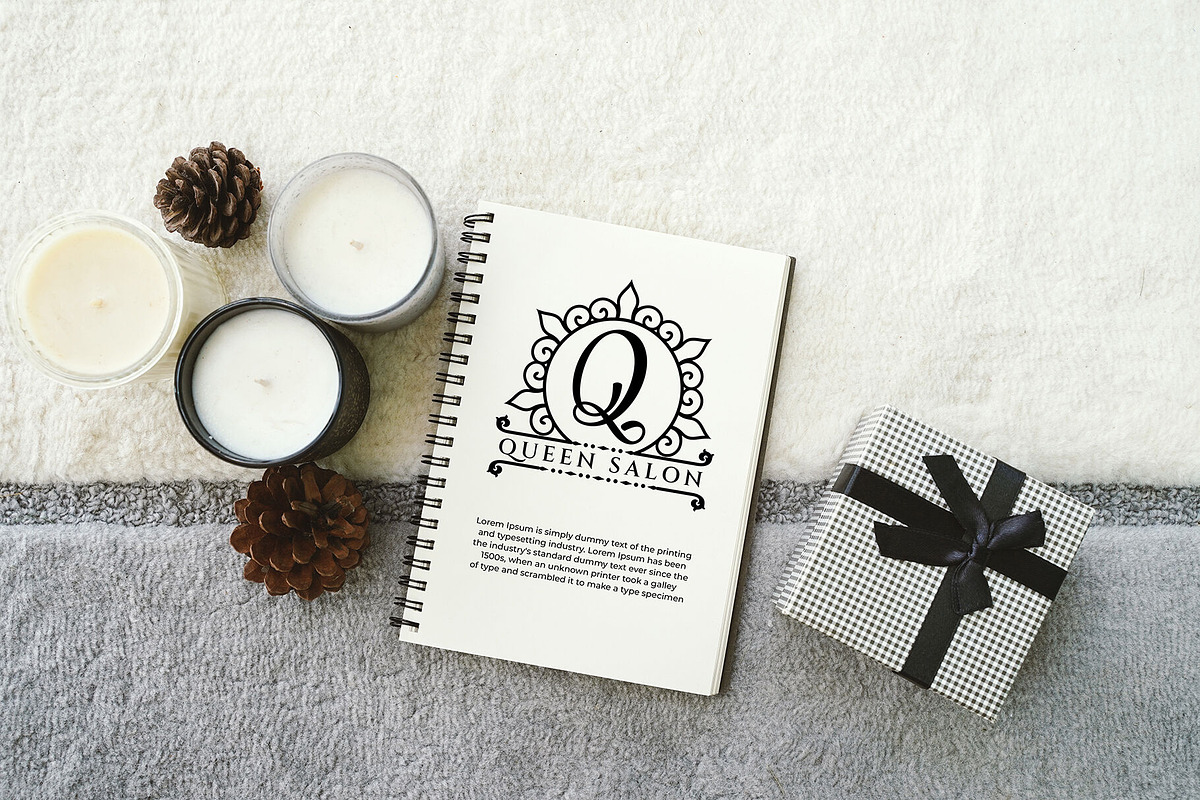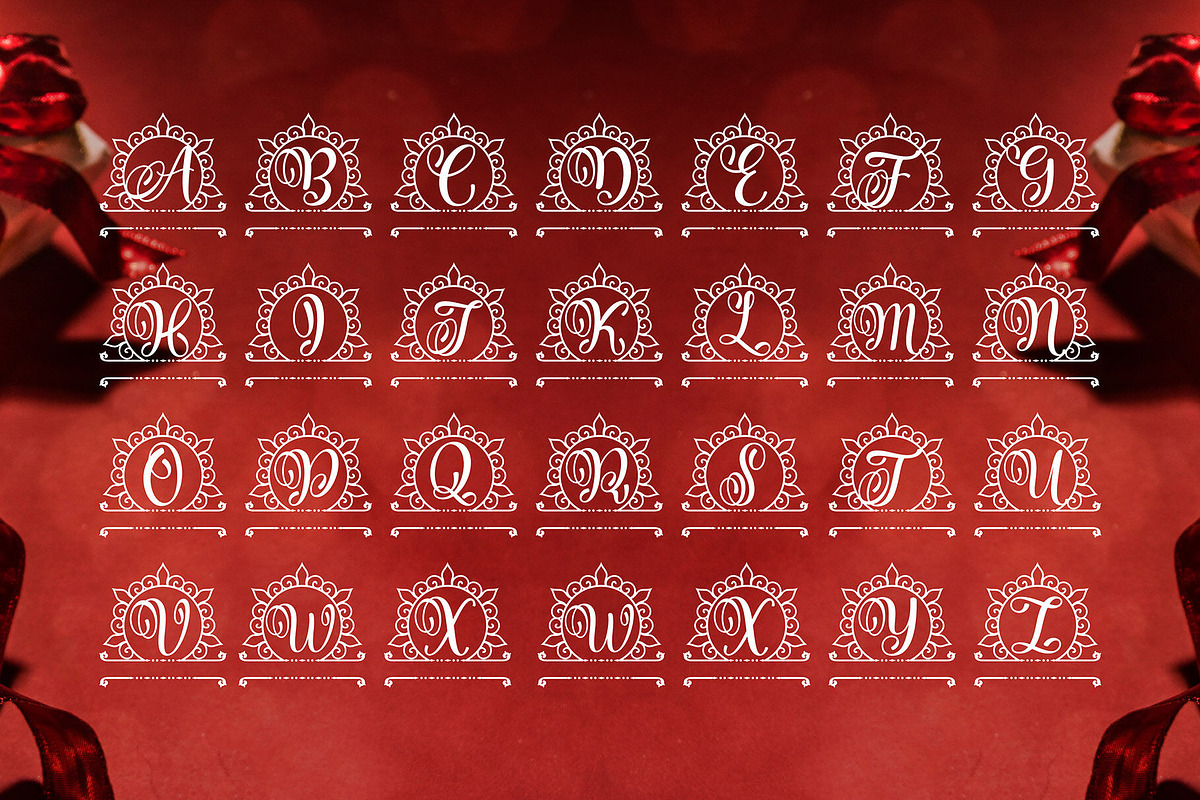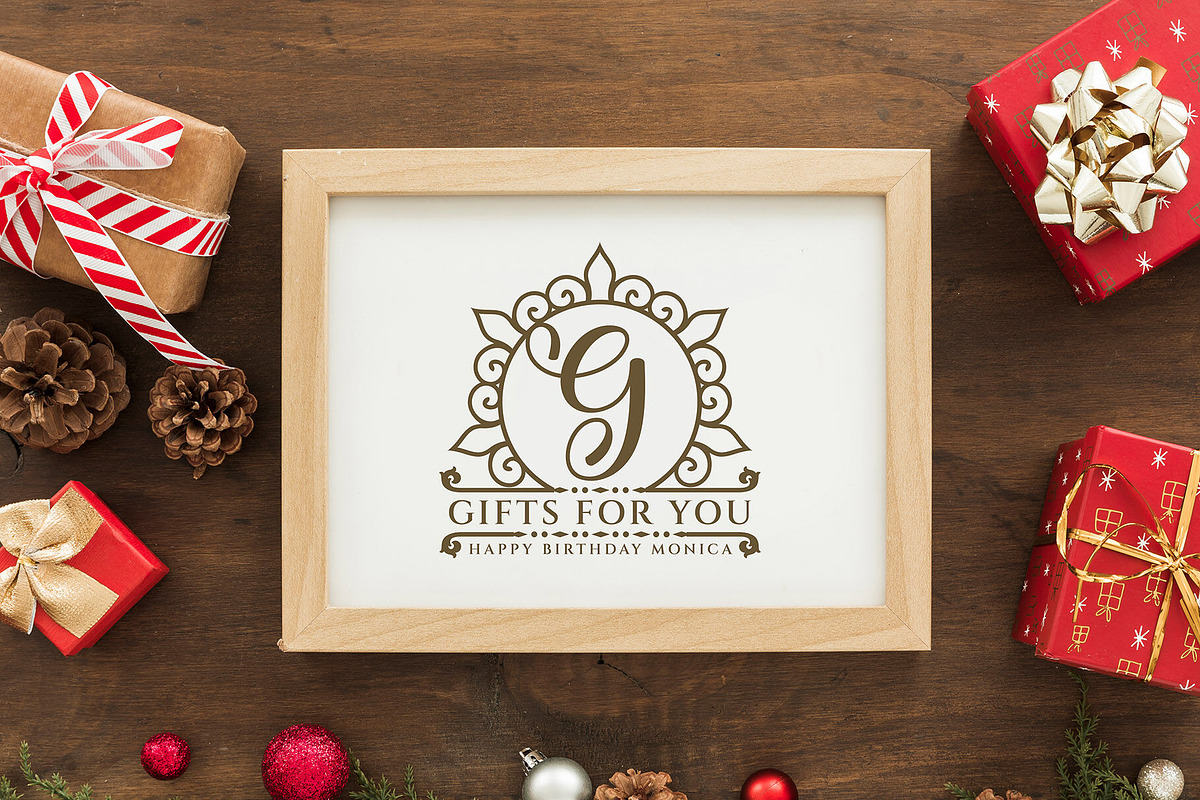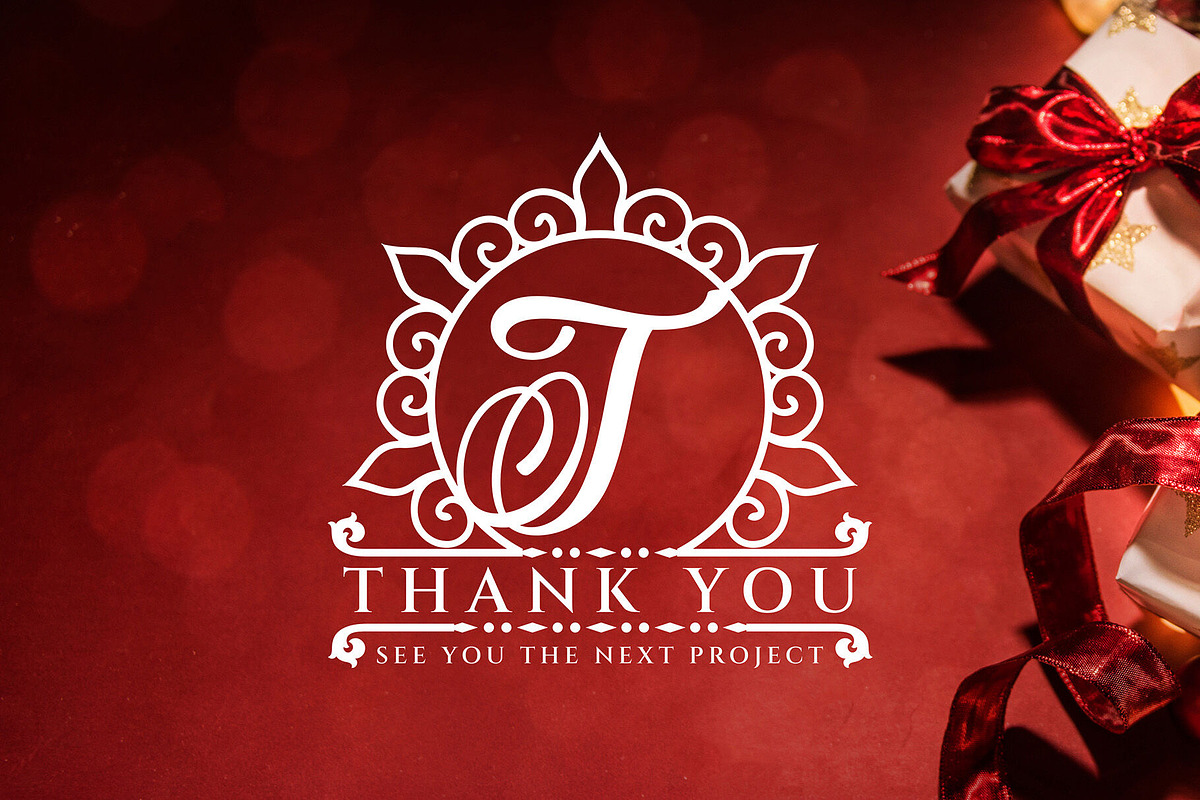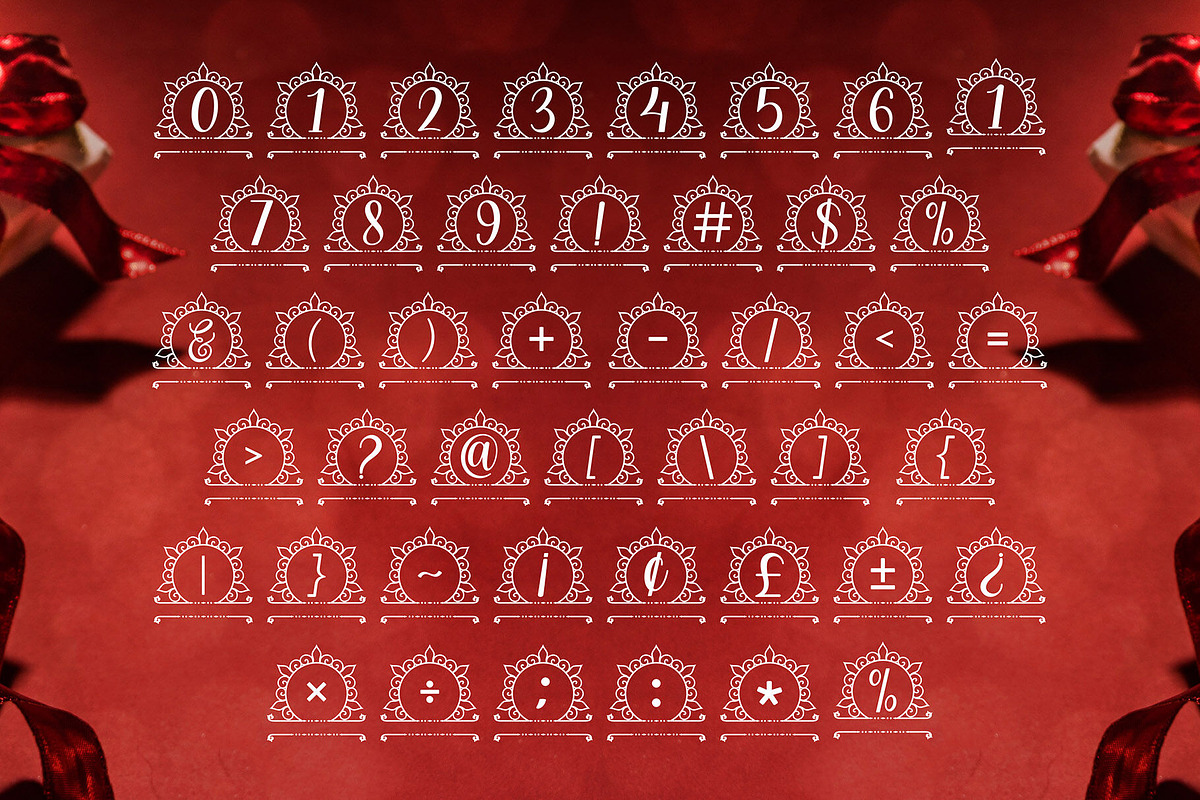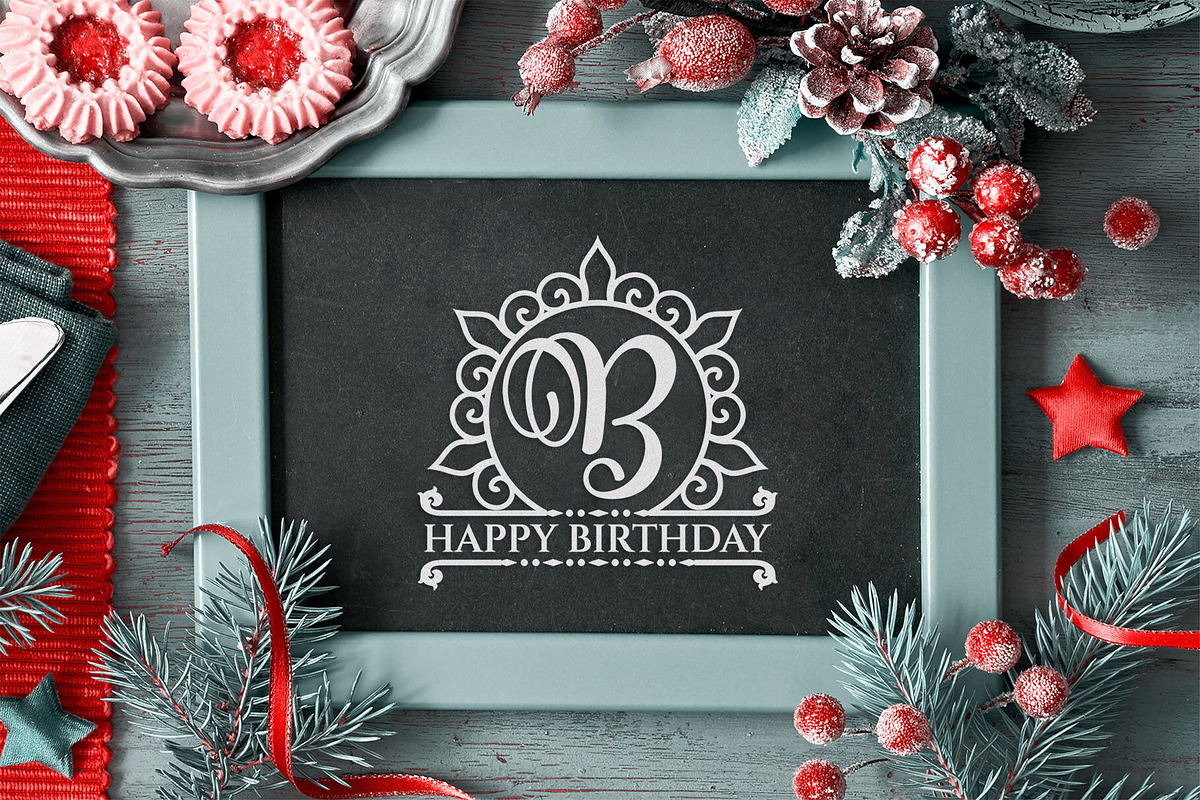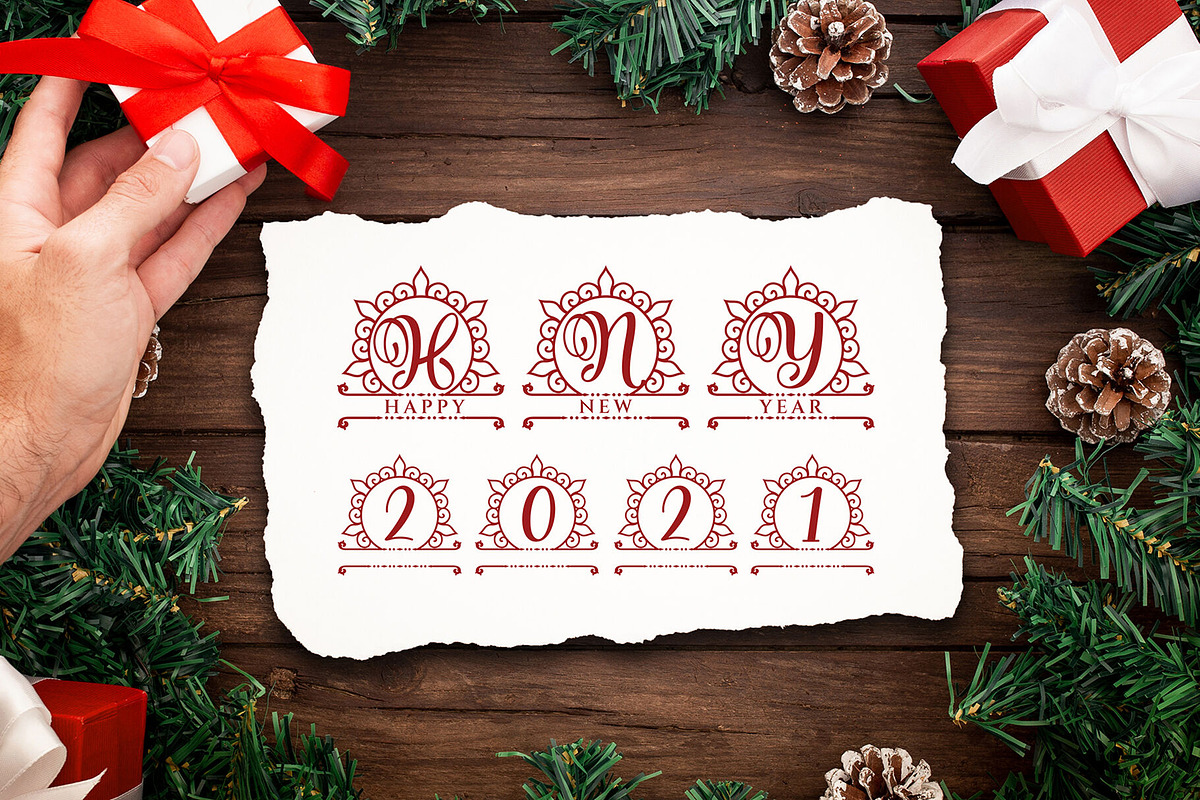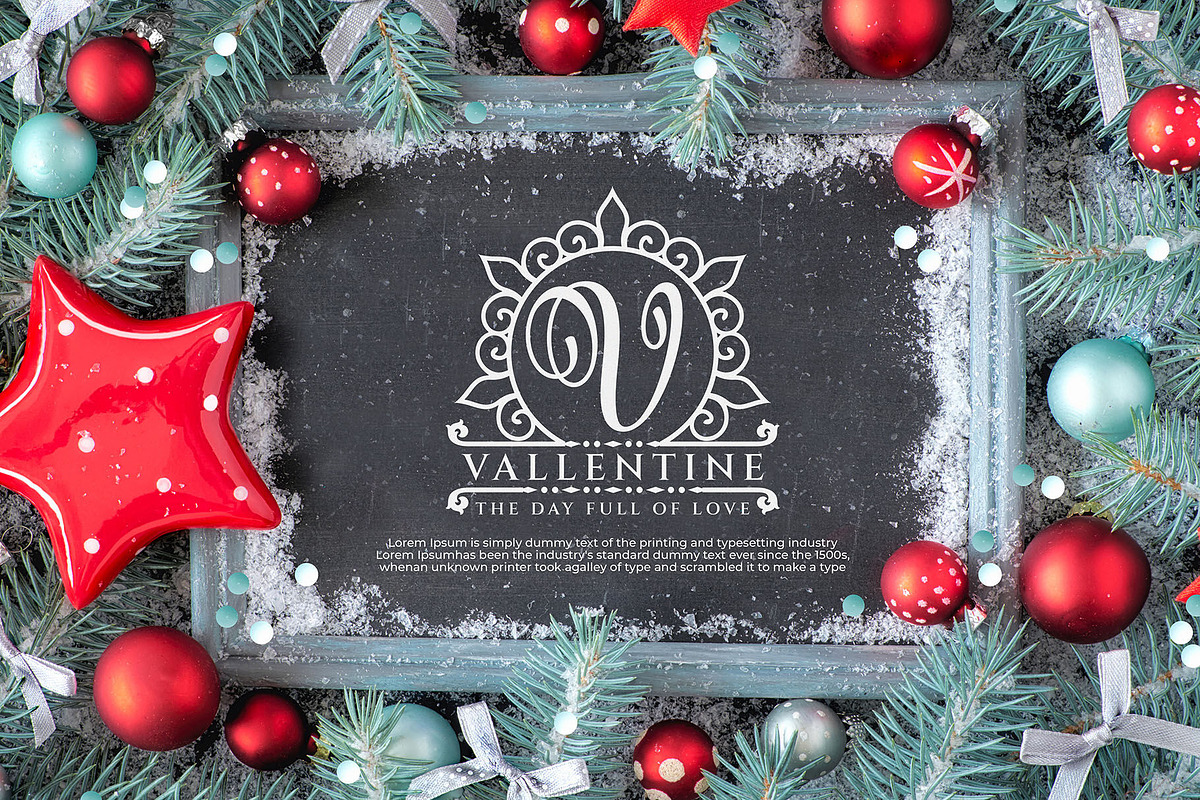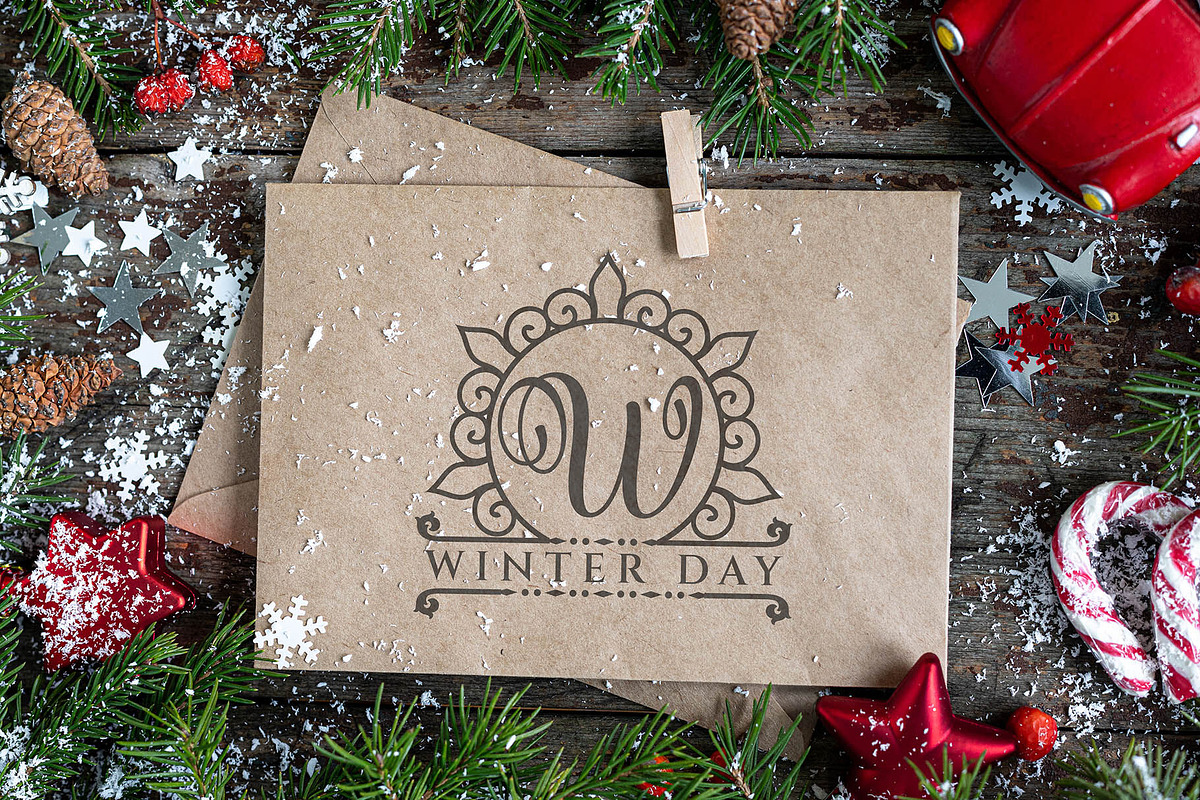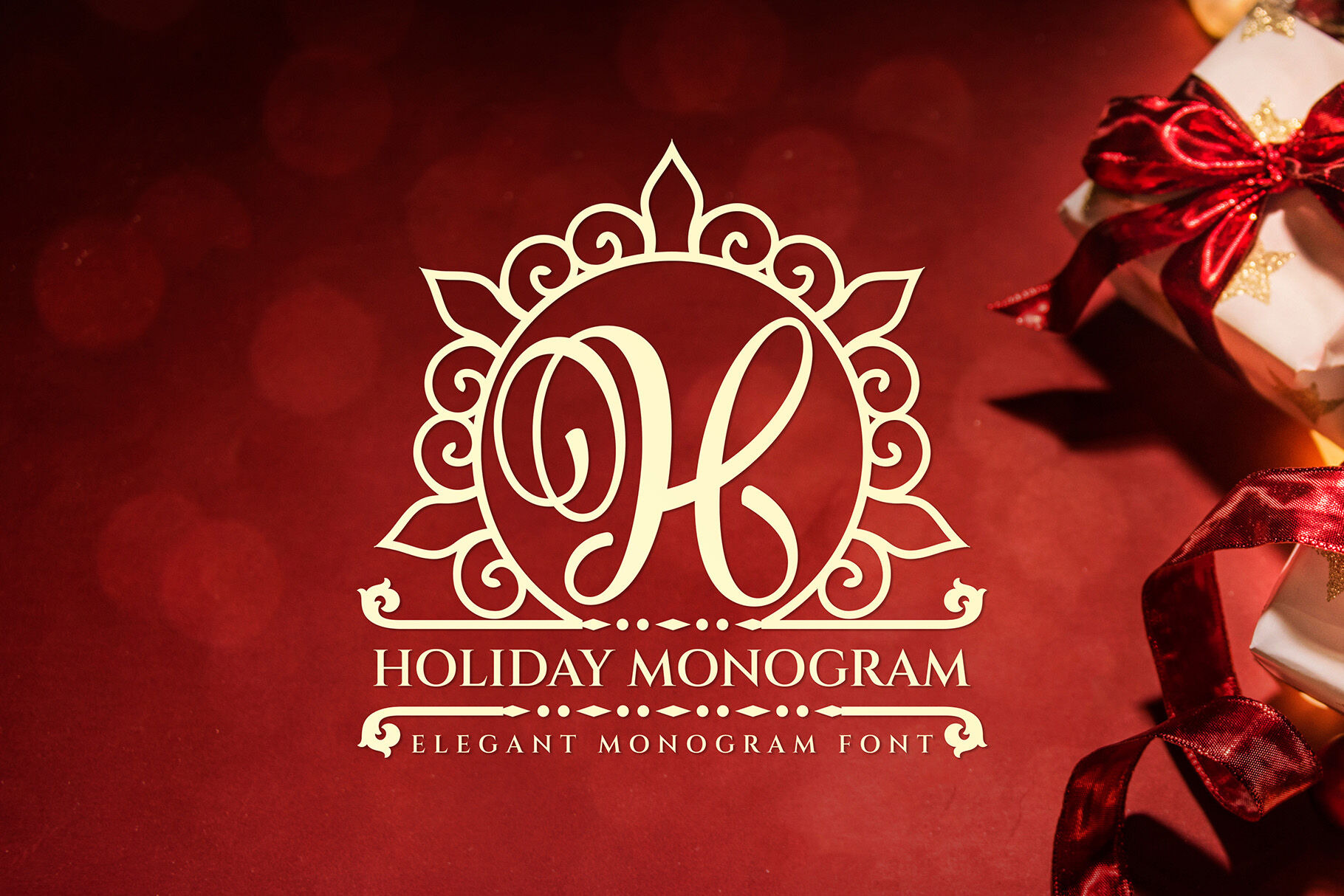
Holiday Elegant Monogram Font
Holiday Elegant Monogram Font, this font was created taking into account the feel of snow at the end of the year. a work that looks elegant and luxurious. This type of font is very suitable for your branding needs such as logos, brand identities, business cards, products, winter gifts, product labels, fashion, product brands, t-shirts, etc.